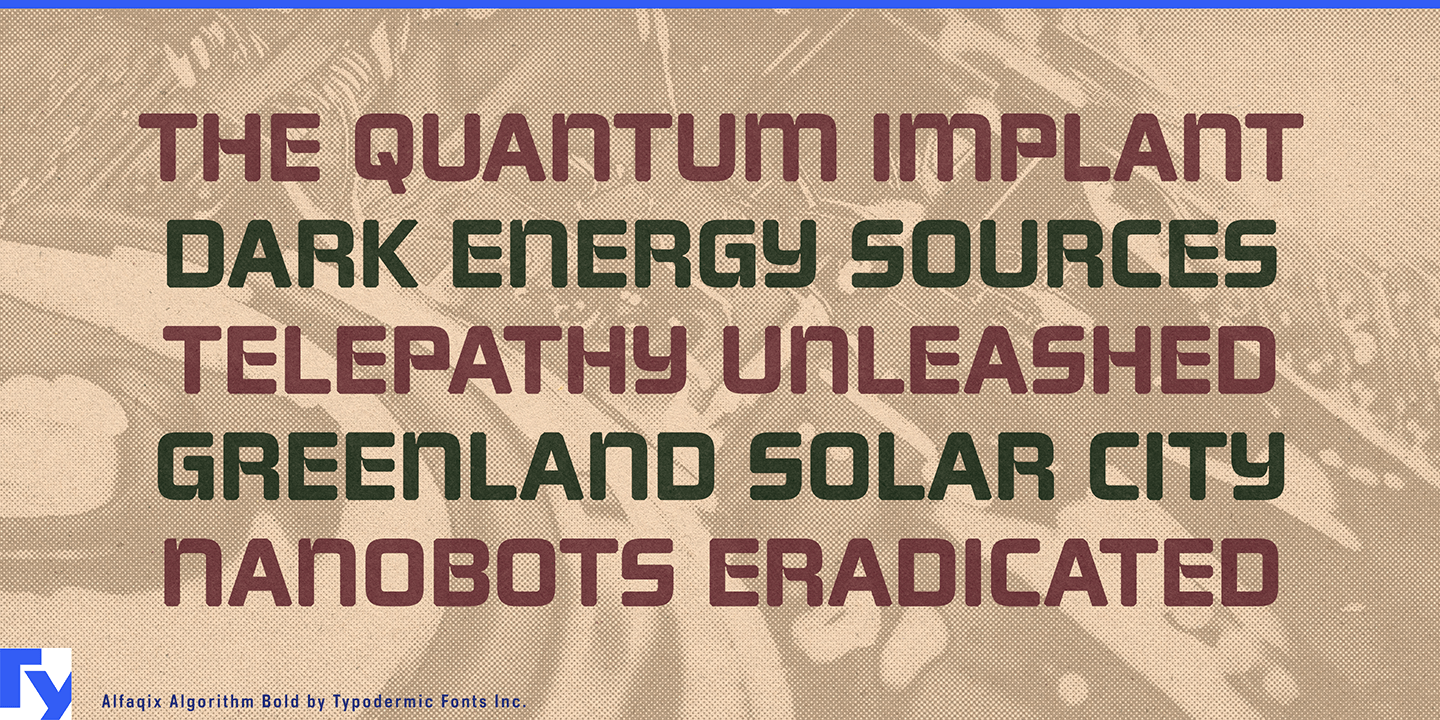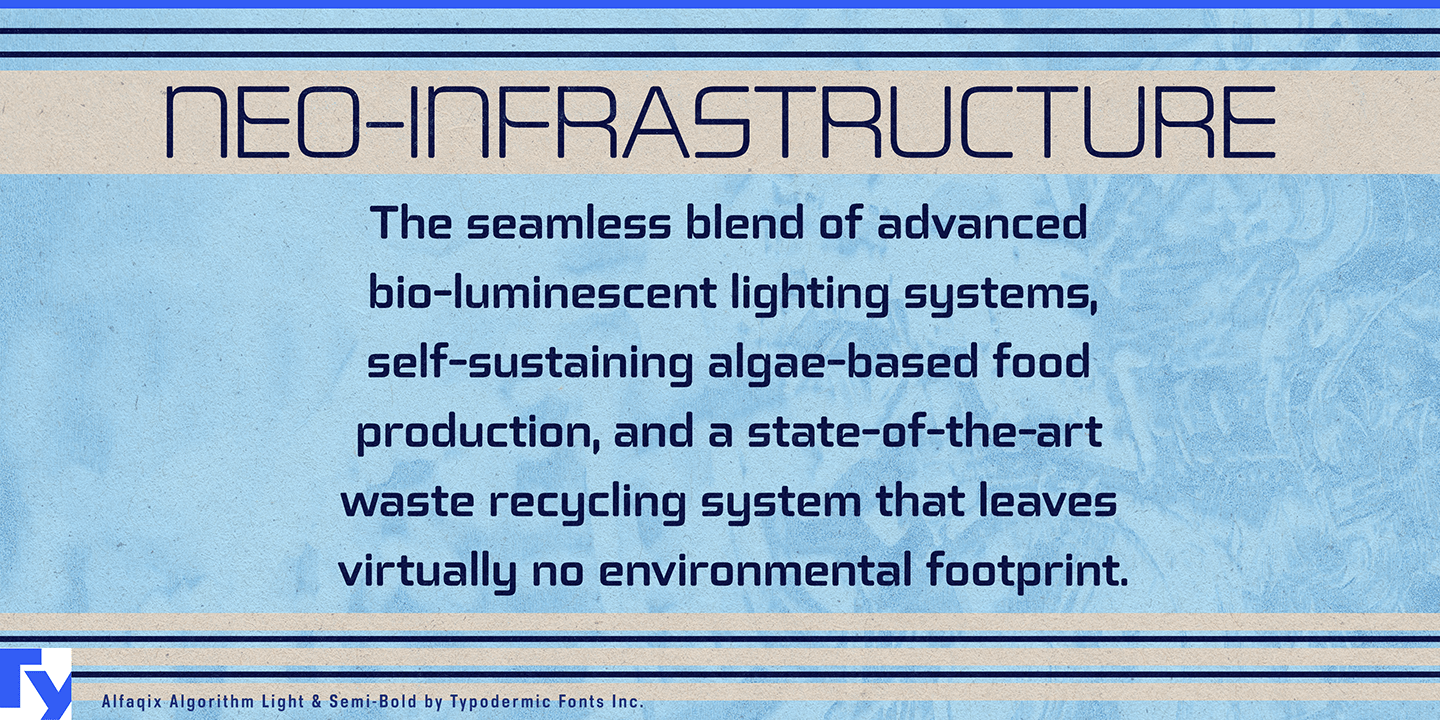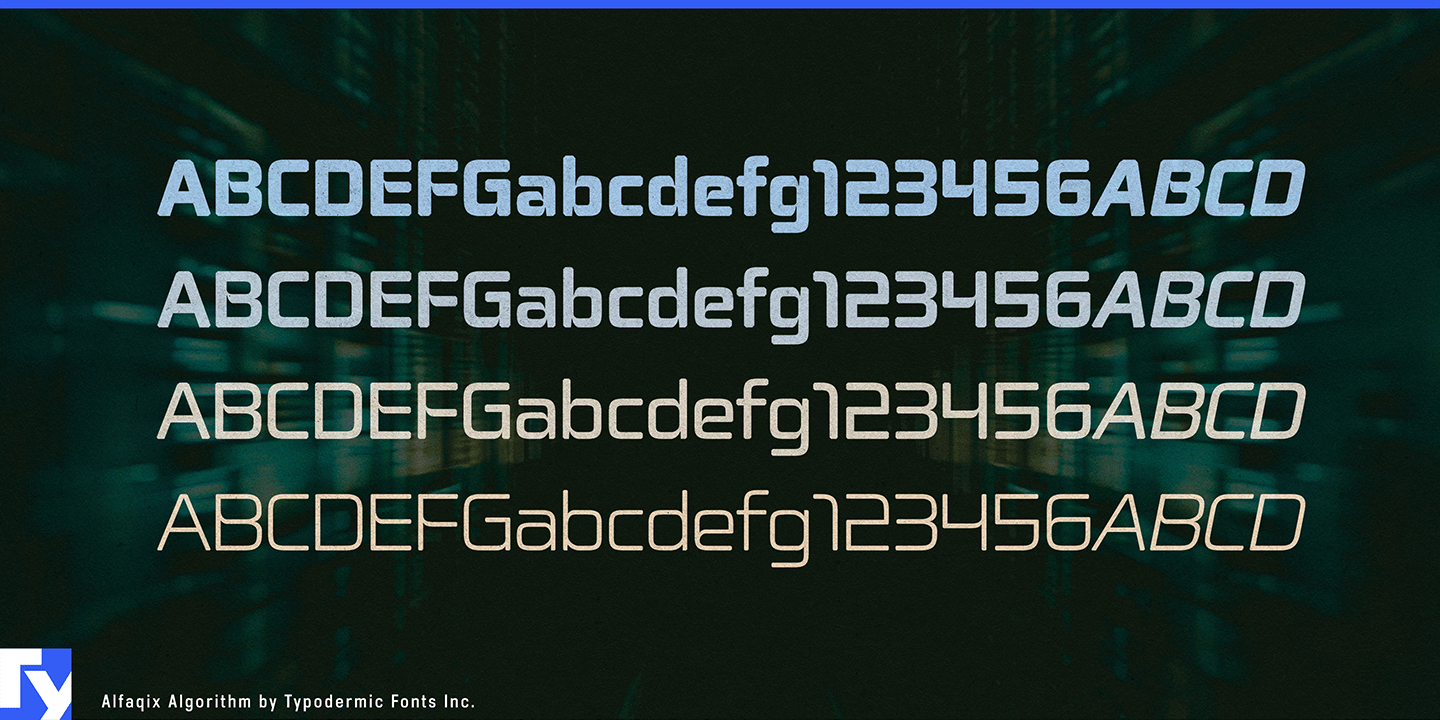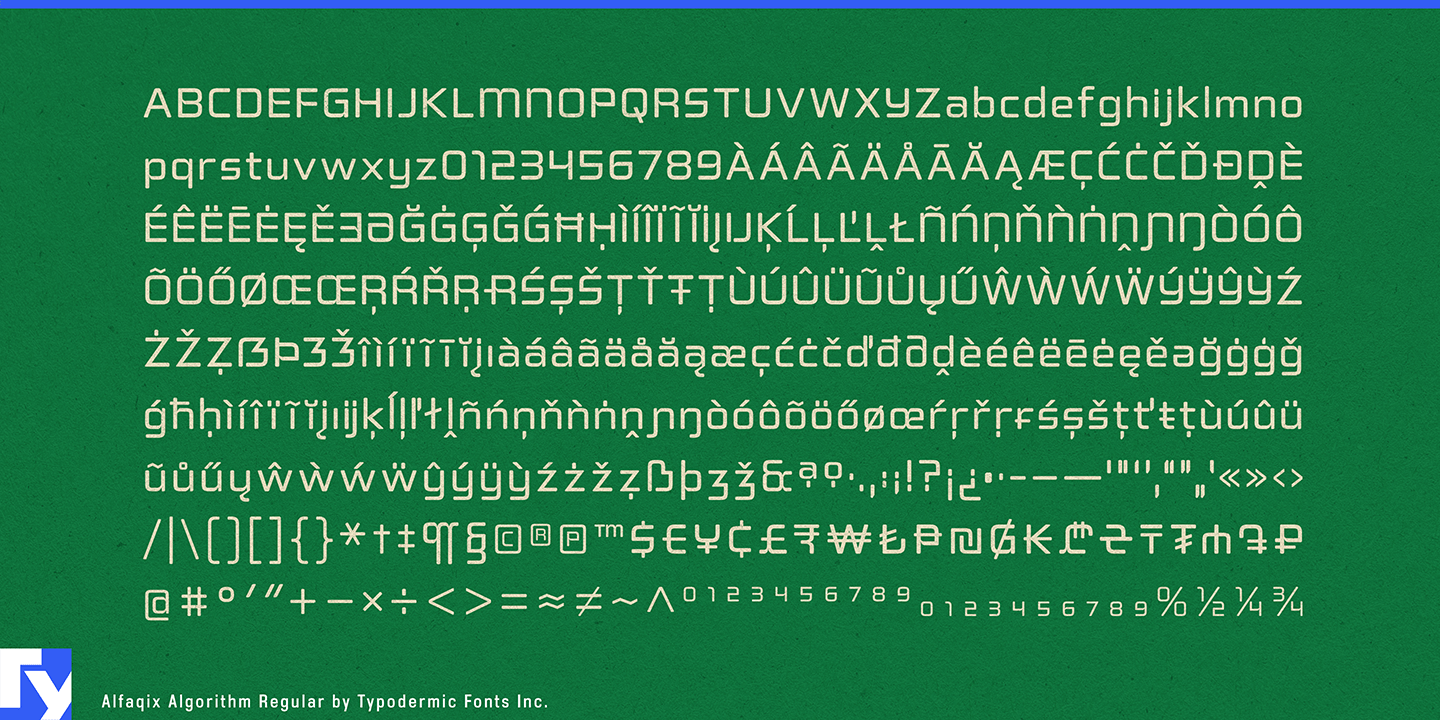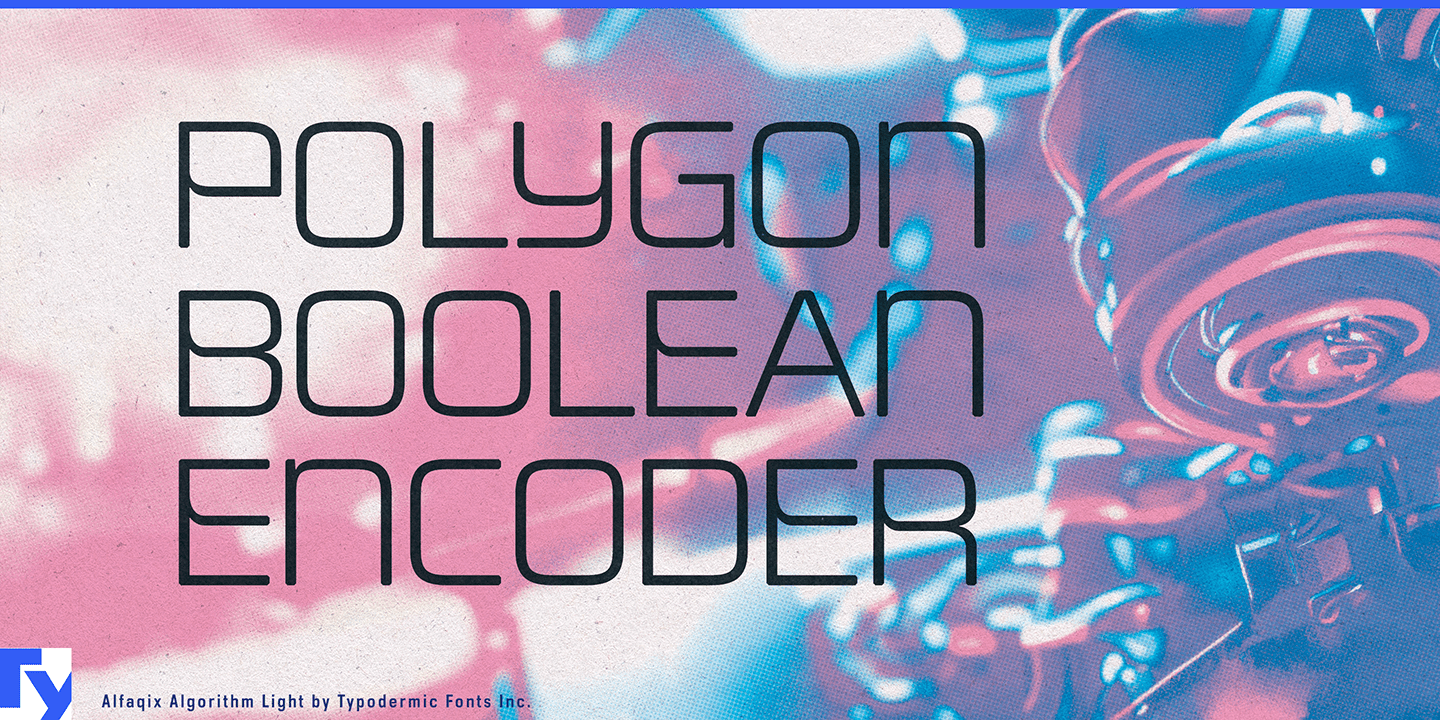
Alfaqix Algorithm
About Alfaqix Algorithm
Alfaqix Algorithm: Typodermic Fonts’ gateway to typographic singularity. This avant-garde typeface decodes the future of communication, translating binary precision into visual eloquence. Its squarish yet fluid forms embody the perfect symbiosis…